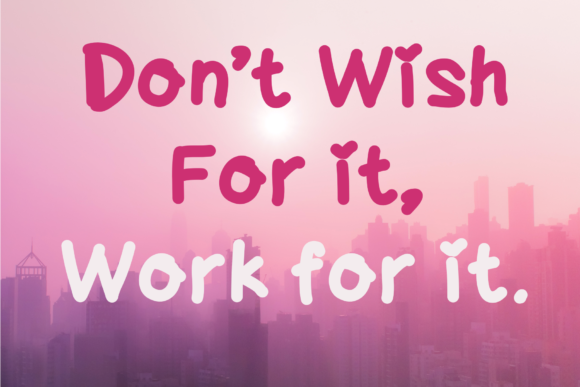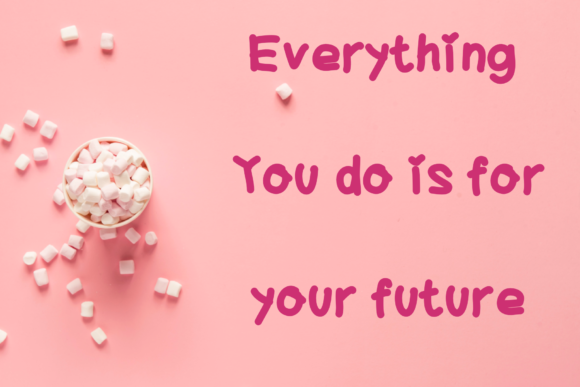
Introducing Depamine Font: The Sweetest and Chunky Handwritten Font You’ll Ever Fall in Love With
Are you tired of using the same old fonts in your designs? Do you want to add a touch of sweetness and personality to your creations? Look no further than Depamine Font, an incredibly sweet and chunky lettered handwritten font that’s sure to capture your heart. In this article, we’ll dive into the world of Depamine Font and explore its features, benefits, and uses, so you can create spectacular designs that stand out from the crowd.
What is Depamine Font?
Depamine Font is a beautifully crafted handwritten font that’s perfect for designers, crafters, and anyone looking to add a personal touch to their creations. Its incredibly versatile style makes it suitable for a wide range of projects, from digital designs to print materials, and everything in between. Whether you’re creating social media graphics, blog posts, or marketing materials, Depamine Font is sure to bring a smile to your audience’s faces.
Features of Depamine Font
So, what makes Depamine Font so special? Here are just a few of its key features:
- Sweet and Chunky Style: Depamine Font boasts an incredibly sweet and chunky style that’s sure to capture attention. Its bold and playful letters are perfect for creating eye-catching designs that pop.
- Handwritten with Love: Depamine Font is a handwritten font, crafted with love and care to give it a personal touch. Its unique and organic feel makes it perfect for designs that require a human touch.
- Versatile and Adaptable: Depamine Font is incredibly versatile and adaptable, making it suitable for a wide range of projects and applications. Use it for digital designs, print materials, or anything in between.
Benefits of Using Depamine Font
So, why should you choose Depamine Font for your designs? Here are just a few benefits of using this amazing font:
- Adds Personality to Your Designs: Depamine Font adds a touch of personality and whimsy to your designs, making them stand out from the crowd.
- Perfect for Branding and Marketing: Depamine Font is perfect for branding and marketing materials, such as logos, social media graphics, and marketing collateral.
- Great for Crafters and DIY Enthusiasts: Depamine Font is also perfect for crafters and DIY enthusiasts who want to add a personal touch to their projects, such as handmade cards, scrapbooking, and other crafts.
How to Use Depamine Font
Using Depamine Font is easy! Here are a few tips to get you started:
- Pair it with Other Fonts: Depamine Font pairs well with other fonts, such as sans-serif fonts, to create a unique and interesting contrast.
- Experiment with Colors: Depamine Font looks great in a variety of colors, from bright and bold to soft and pastel.
- Use it for Headings and Titles: Depamine Font is perfect for headings and titles, where its bold and playful style can really shine.
| Font Name | Depamine Font |
| Author | KateType |
In conclusion, Depamine Font is an incredibly sweet and chunky lettered handwritten font that’s sure to capture your heart. Its versatile style, unique features, and benefits make it perfect for designers, crafters, and anyone looking to add a personal touch to their creations. So why wait? Fall in love with Depamine Font today and start creating spectacular designs that stand out from the crowd!
Whether you’re a seasoned designer or a DIY enthusiast, Depamine Font is sure to inspire you to create something amazing. So go ahead, get creative, and show the world what you’re working with!